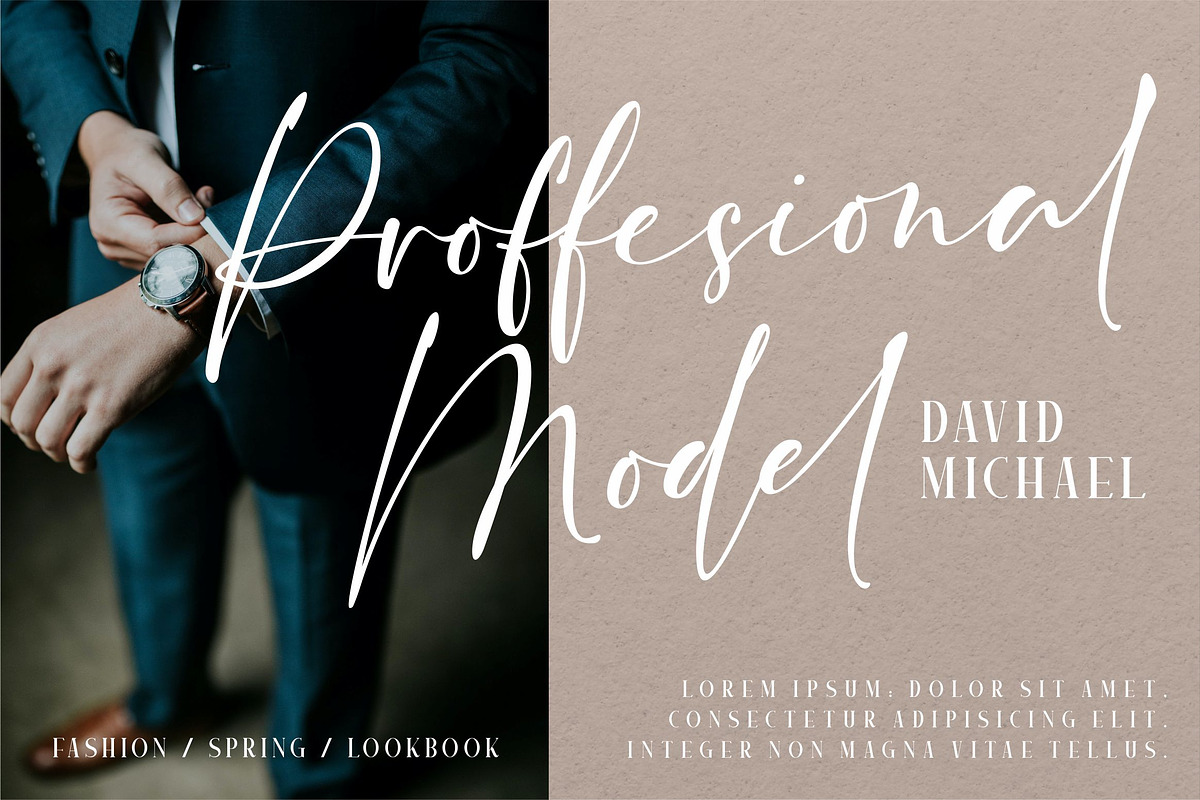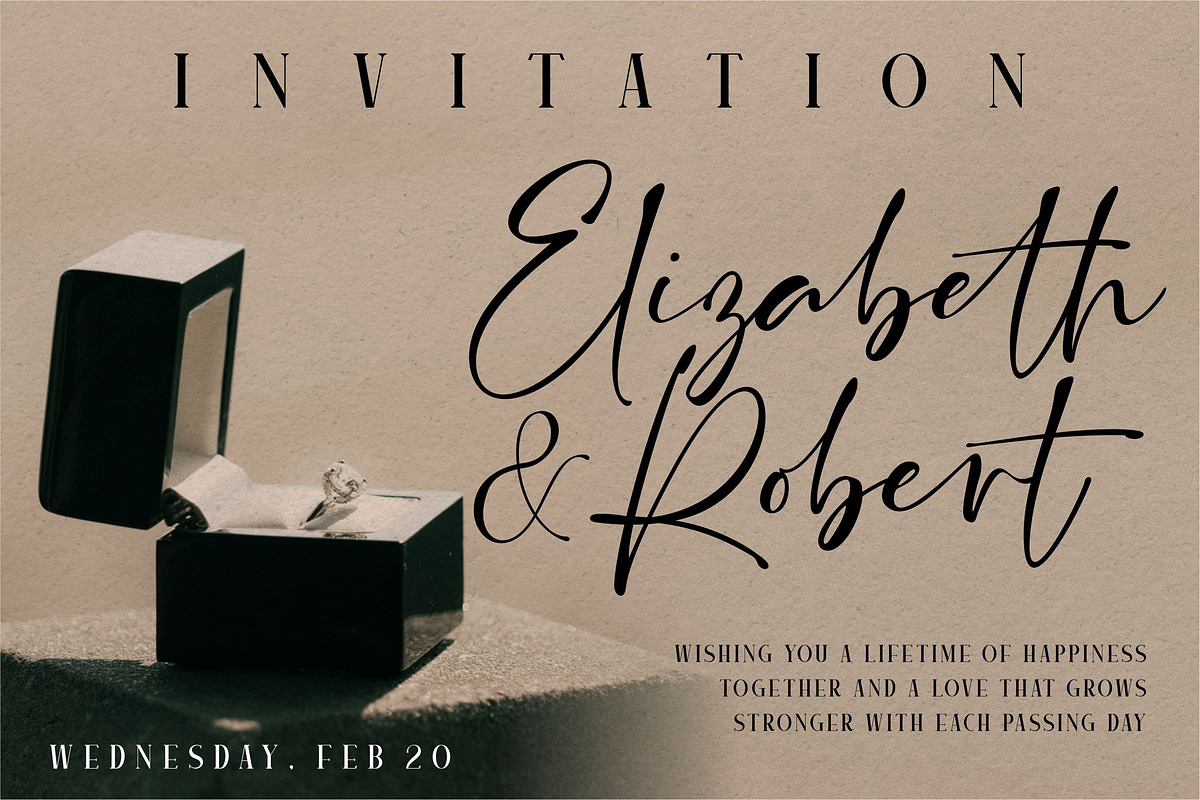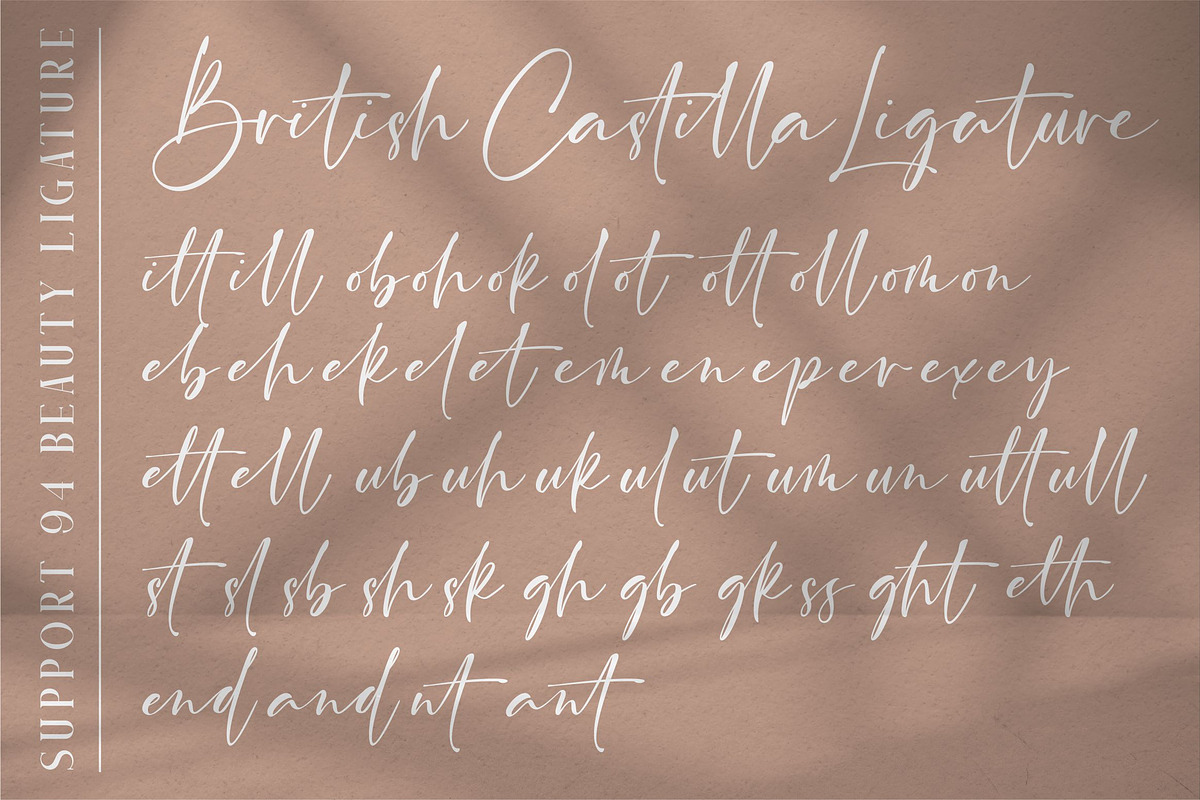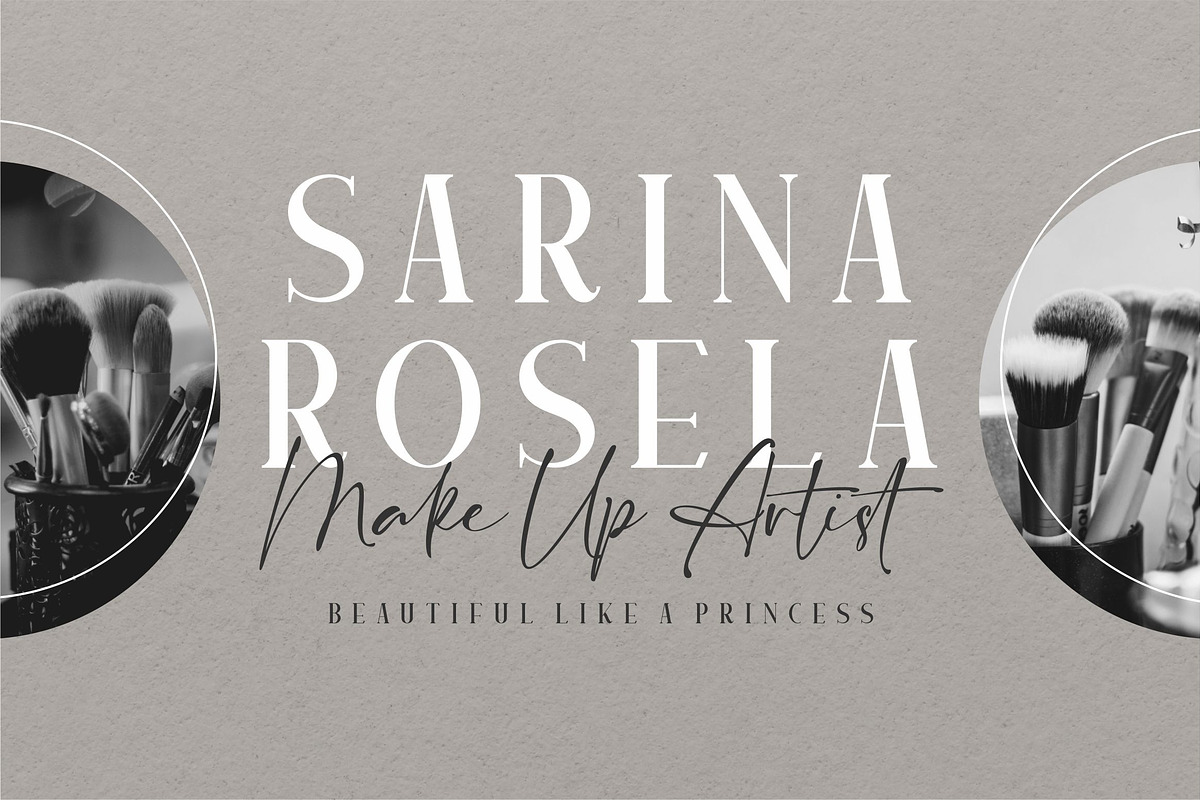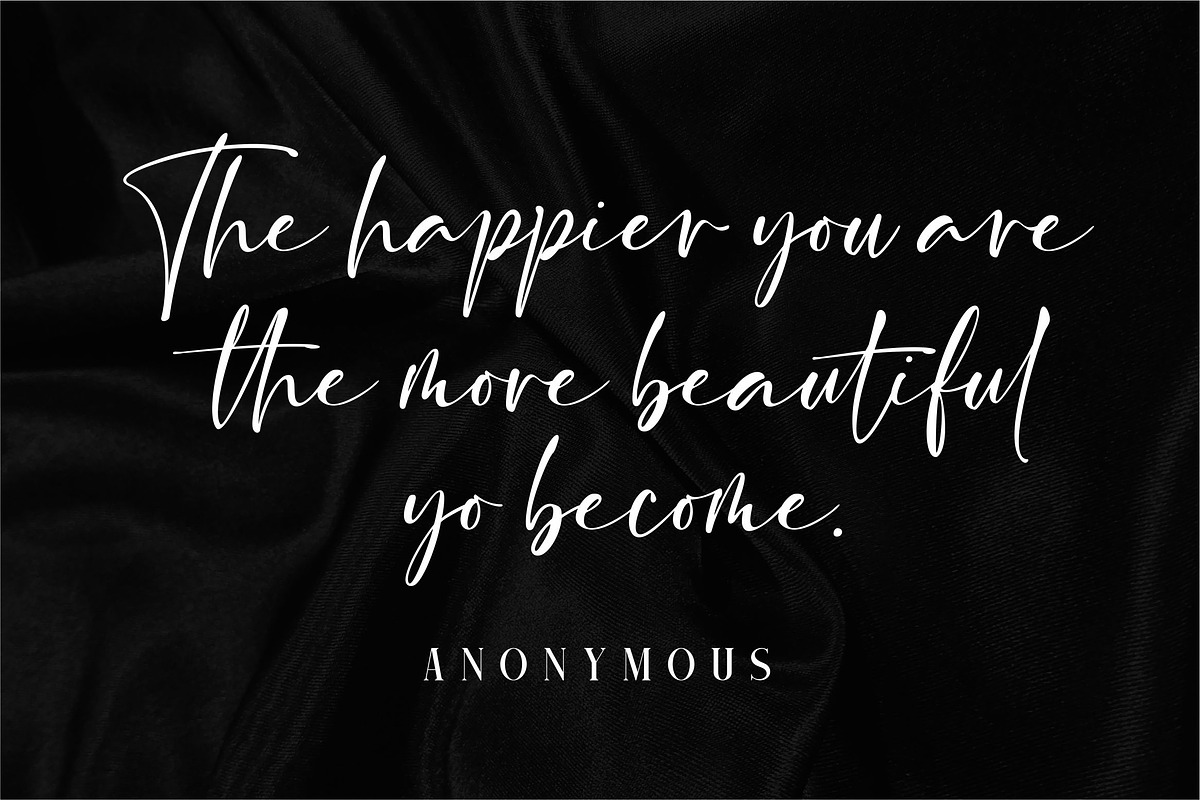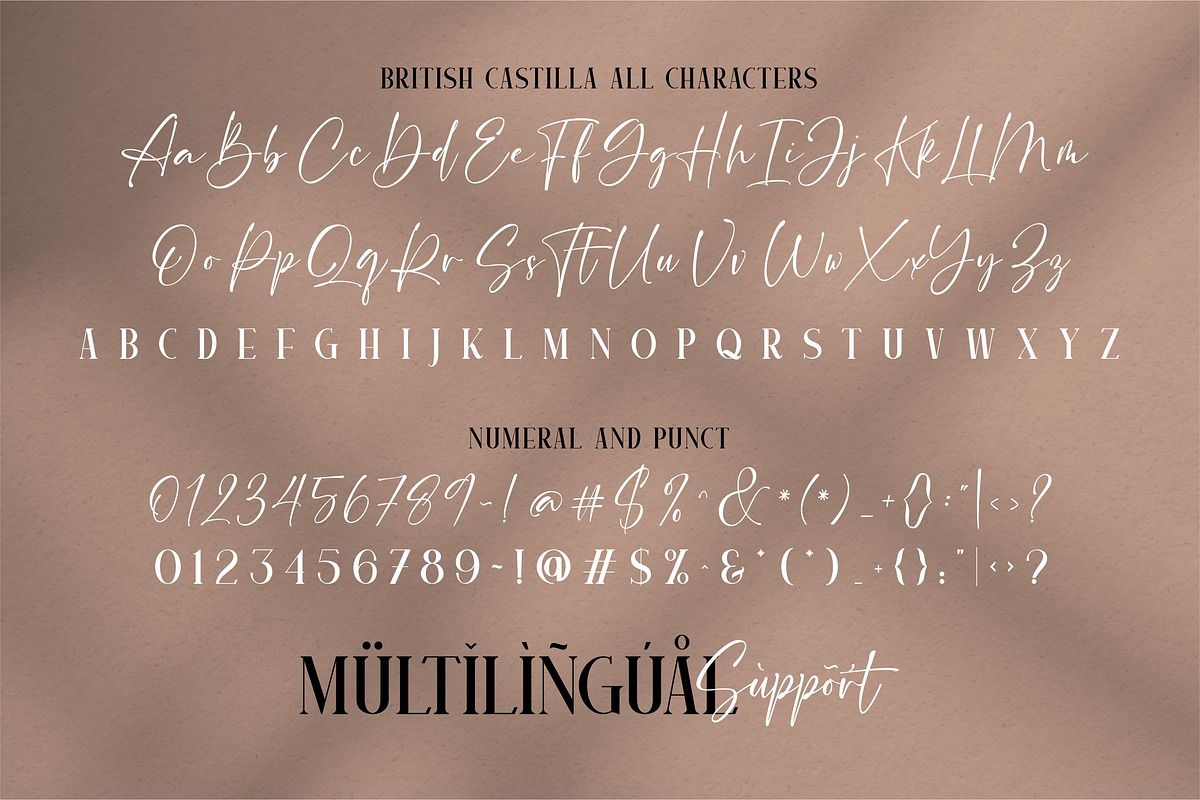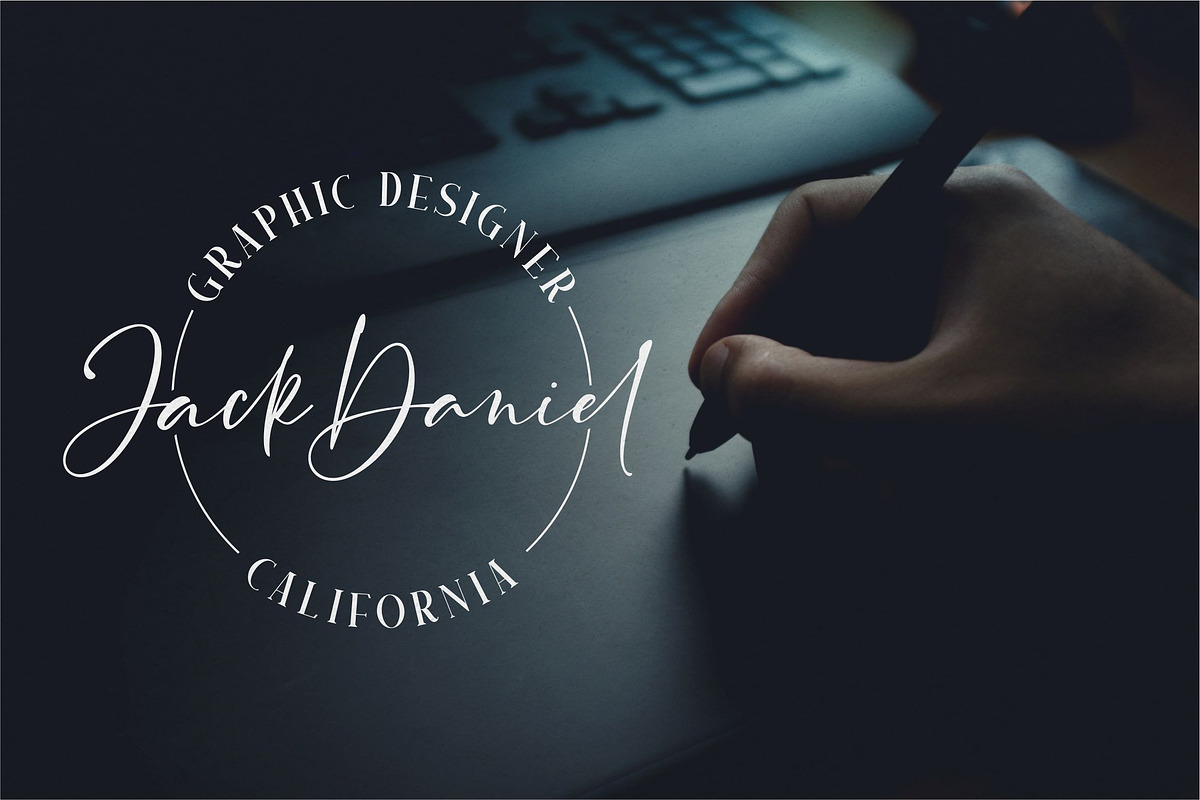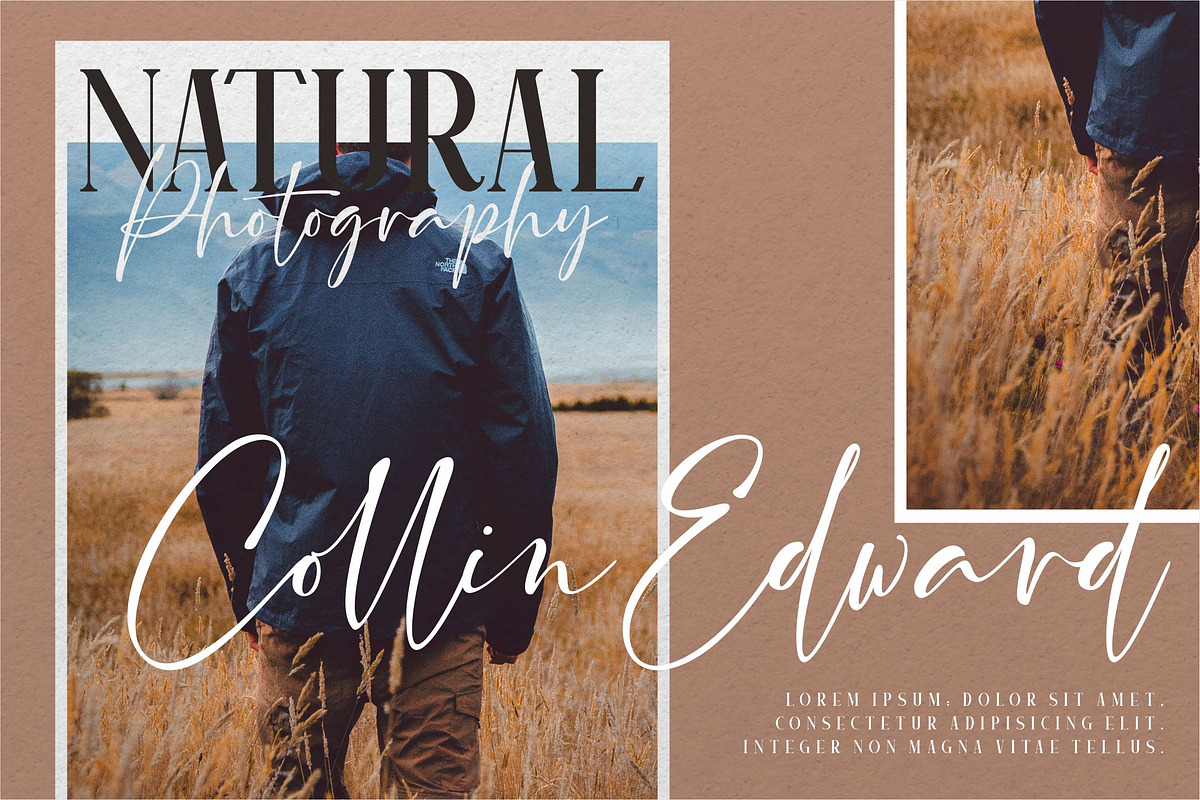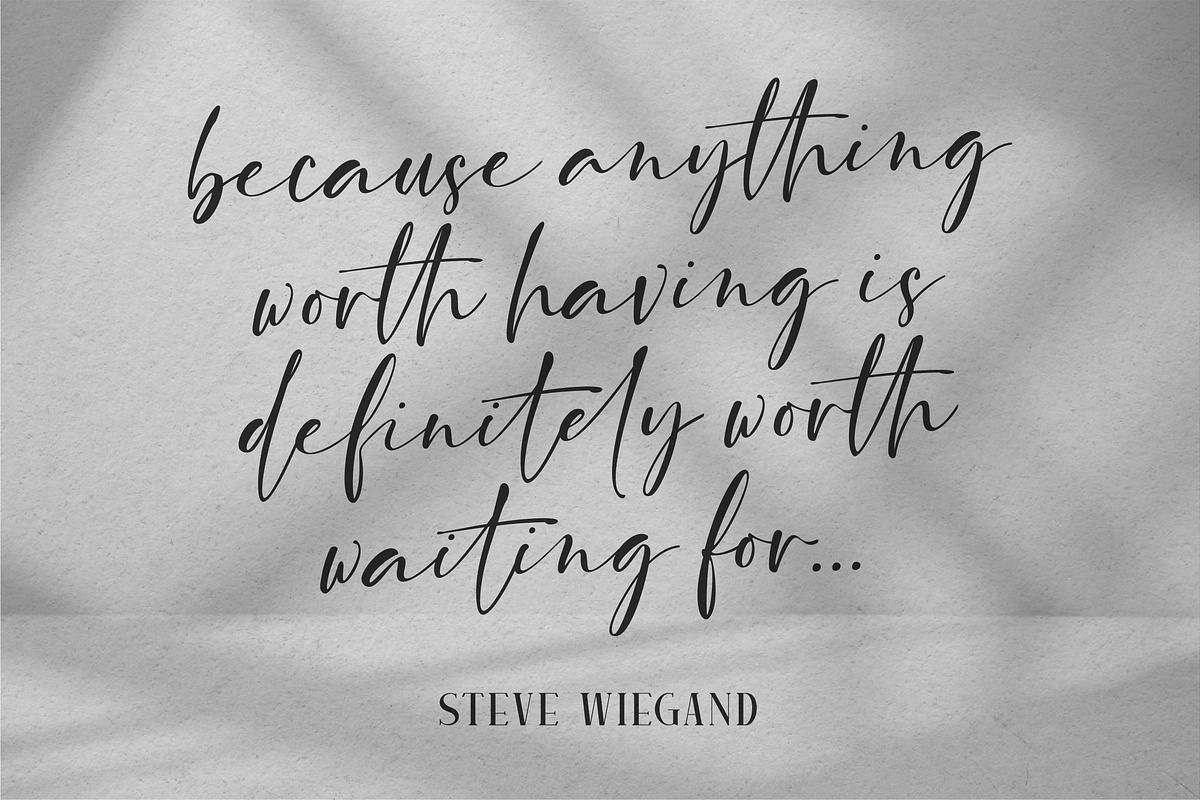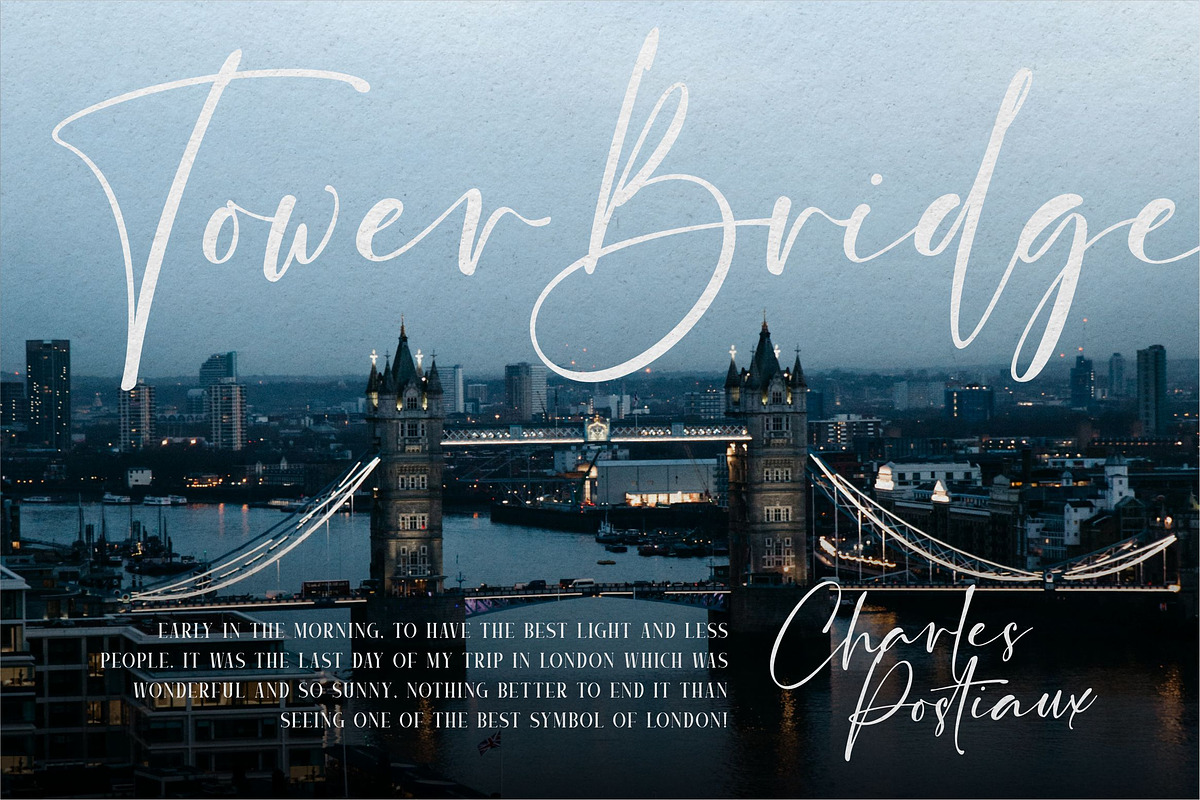
British Castilla - Luxury Font Duo
British Castilla Luxury Font Duo, these fonts are of two types serif and script. This typeface has been made carefully to make sure its premium quality and luxury feel. The ligatures on script makes this typeface unique and stands out rather than the regular serif font, perfectly for headlines, logos, posters, packaging, T-shirts,coffee shops, restaurants, magazine’s headers, signs or gift/post cards,cafe’s and weddings or any type of advertising purpose.
British Castilla Luxury font includes over 94 ligatures to make it more natural and has a beautiful characteristic handlettering
- British Castilla* include, numbers, punctuation,alternates, and it also supports other languages
- British Castilla* it also supports multilingual